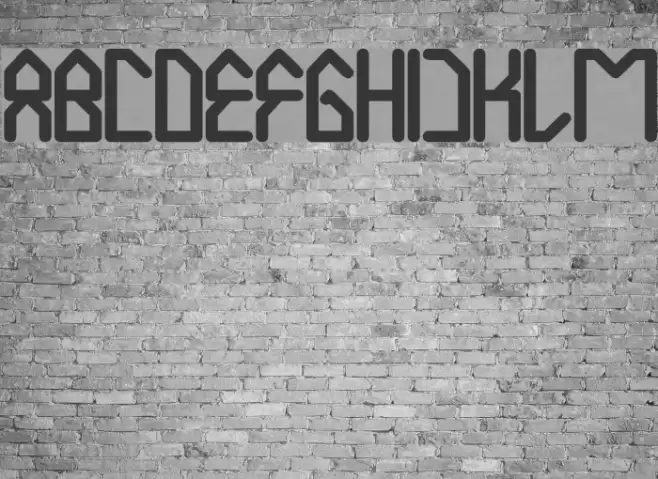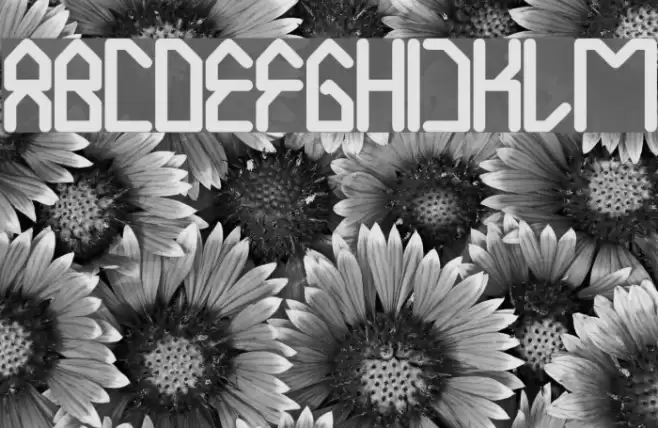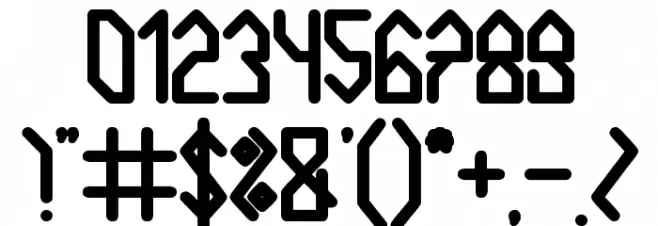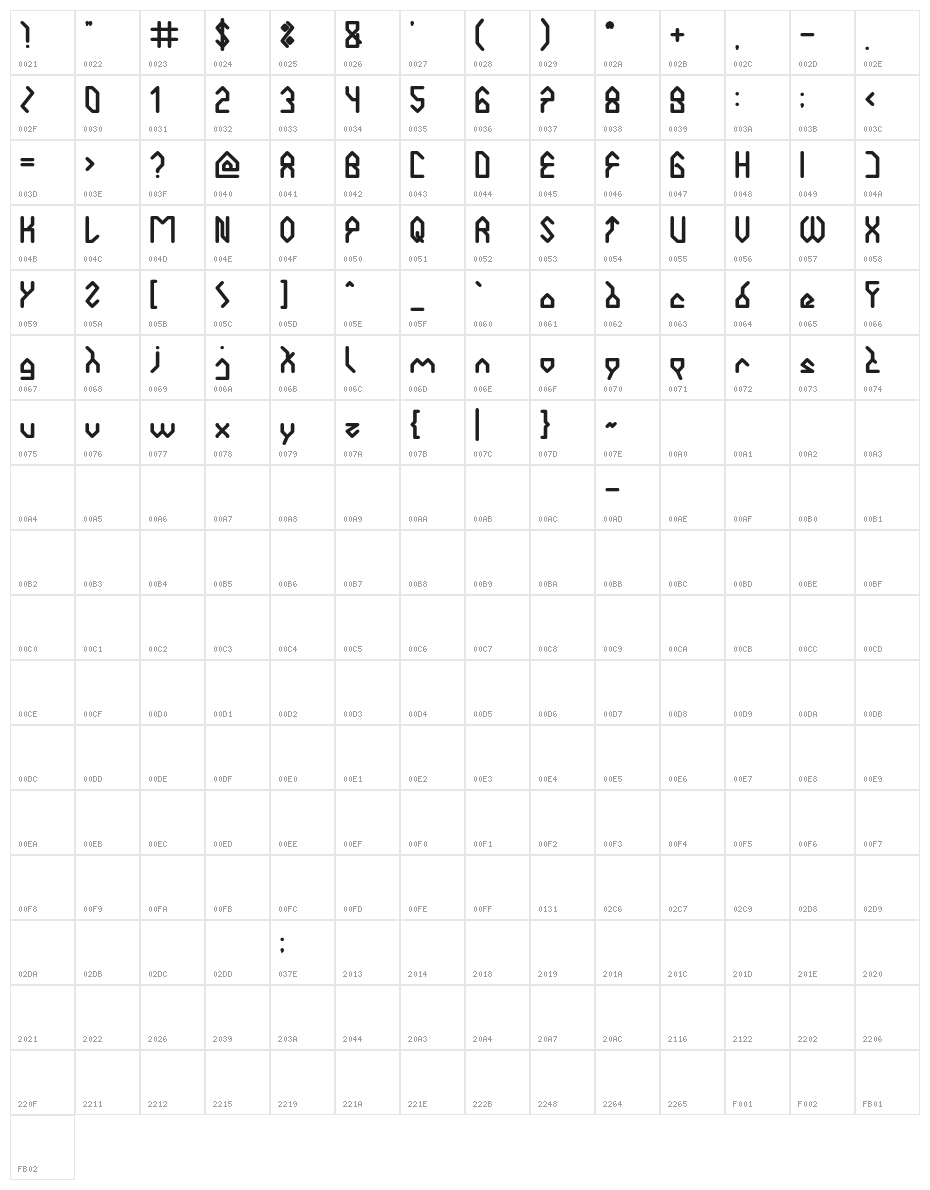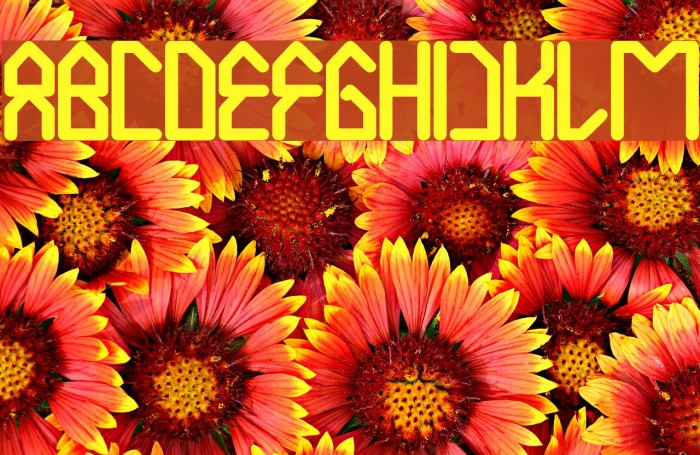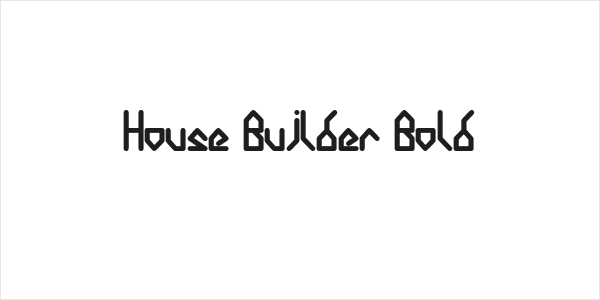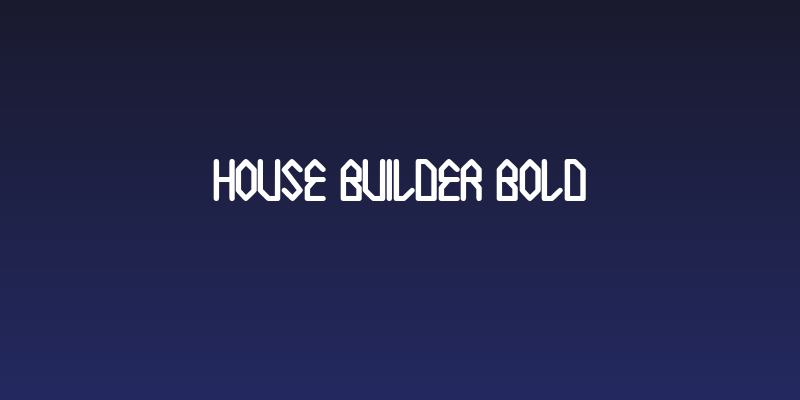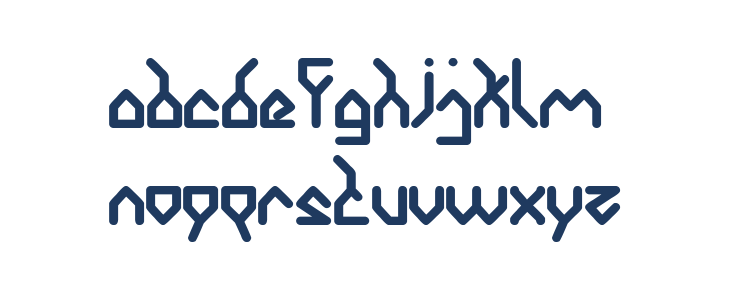
House Builder Bold Font
House Builder Bold Description
This font features a bold, geometric design with a distinctly modern and industrial aesthetic. The characters are constructed with thick, uniform strokes that create a sense of strength and stability. Each letter and number is composed of angular lines and sharp corners, giving the typeface a mechanical and architectural feel. The uppercase and lowercase letters maintain a consistent style, with the lowercase mirroring the uppercase in form and structure. The numerals and special characters follow the same design principles, ensuring a cohesive look across all glyphs. This font's unique style makes it stand out, offering a bold statement in any design project.
A bold, geometric font with an industrial and architectural style from Uncategorized fonts.
- Proposed Projects: Ideal for architectural branding, construction company logos, industrial design projects, and modern poster headlines.
- Use Case: Logos, Headlines